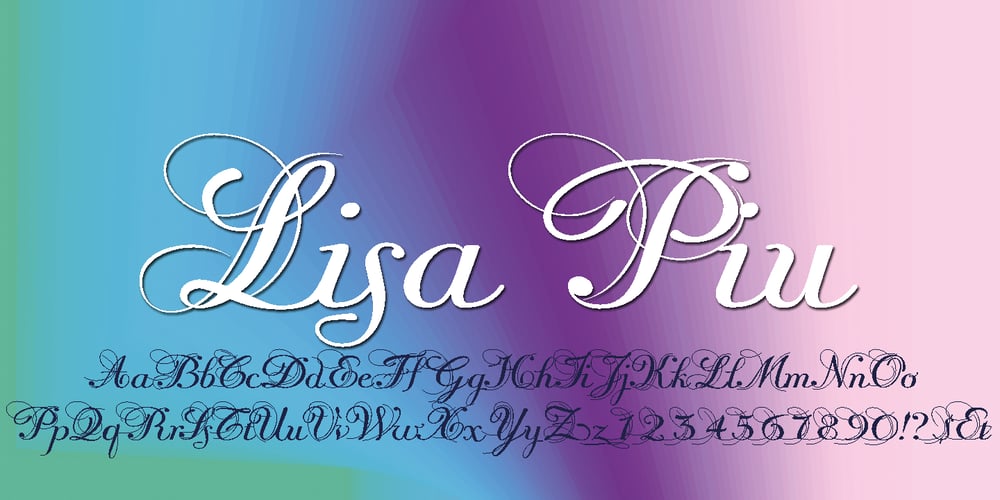
Lisa Piu
Lisa Piu font
Lisa Piu Font Family was designed by Gert Wiescher and published by Wiescher Design. Lisa Piu contains 1 styles and family package options. Lisa is an elegant script family in the tradition of early Italian type designers like Bodoni. I added counter strokes and floral embellishments to the font. Lisa comes in three variations: the beautiful Lisa Bella, the flowery Lisa Fiore and the extra swinging Lisa Piu (which means more in Italian). Enjoy! Your elegant script designer Gert Wiescher